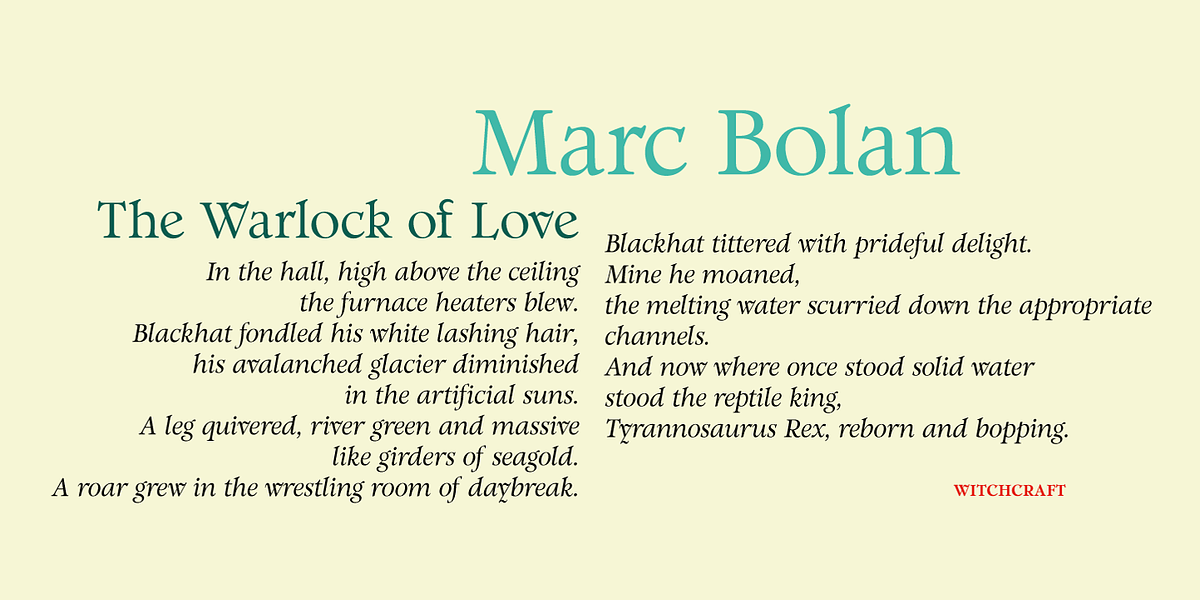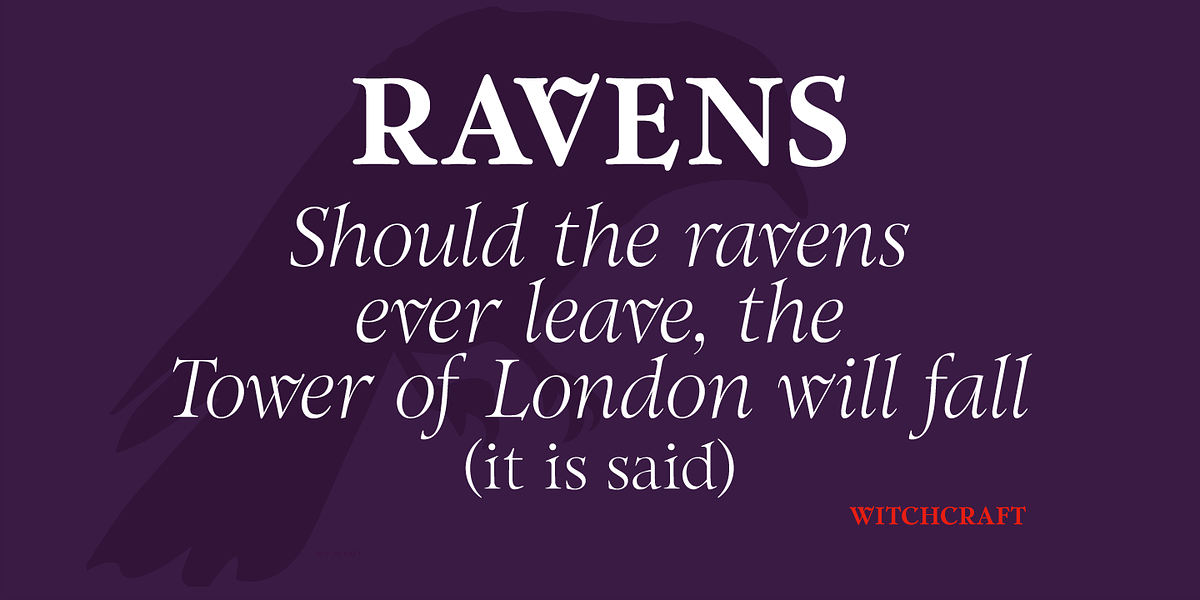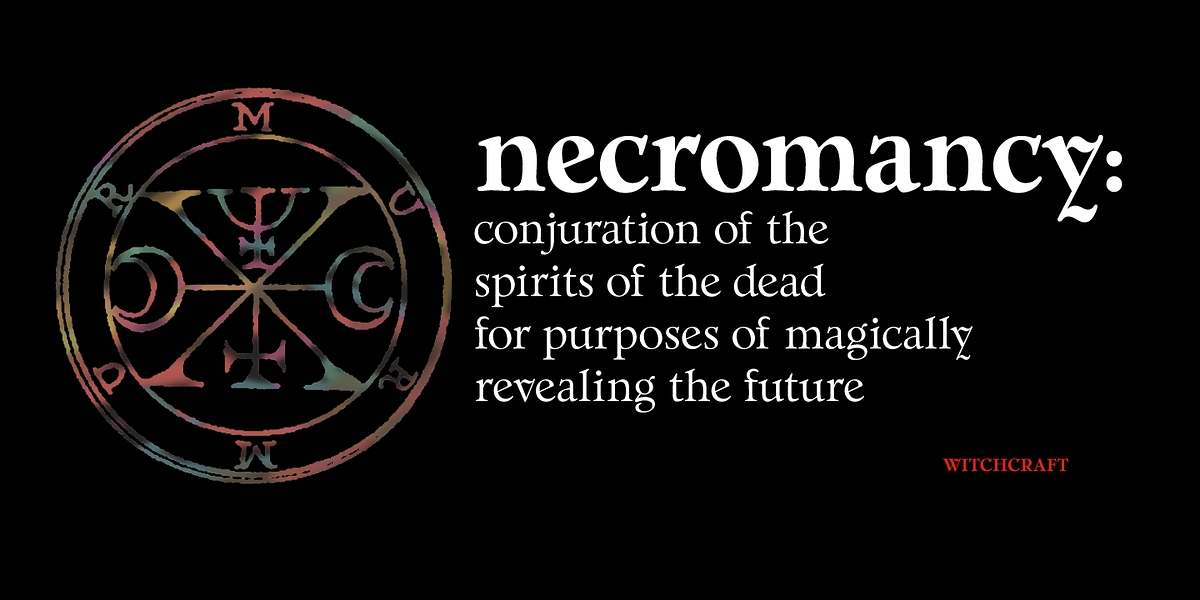
Witchcraft
Witchcraft is a serif font that draws inspiration from classic Roman design, particularly Georg Belwe's 'Belwe'. It features an old-style join for the letters 'v', 'w', and 'y'. The font is available in three weights with corresponding italics. Its large x-height makes it versatile for both headlines and body text.